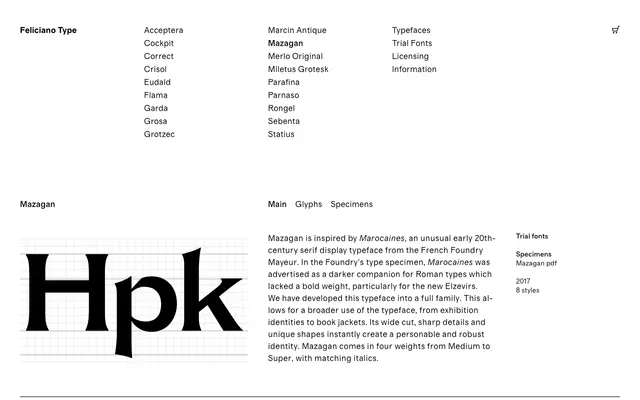
Mazagan
Feliciano Type · 2017
A wide-cut display serif revived from Marocaines, a French early 20th-century type specimen, expanded into eight styles from Medium to Super.
Based on Marocaines, an unusual display serif from the French foundry Mayeur originally conceived as a bold companion for Elzevir romans, Mazagan extends that source into a proper working family. Four weights from Medium to Super each have matching italics, giving the family enough range for book jackets, exhibition identities and editorial headlines. The wide proportions and sharp details give it a distinctive personality without resorting to novelty.
Inspired by Marocaines, an early 20th-century French serif display typeface, Mazagan is a wide-cut, high-contrast display serif developed for use at larger sizes across exhibition and editorial contexts.